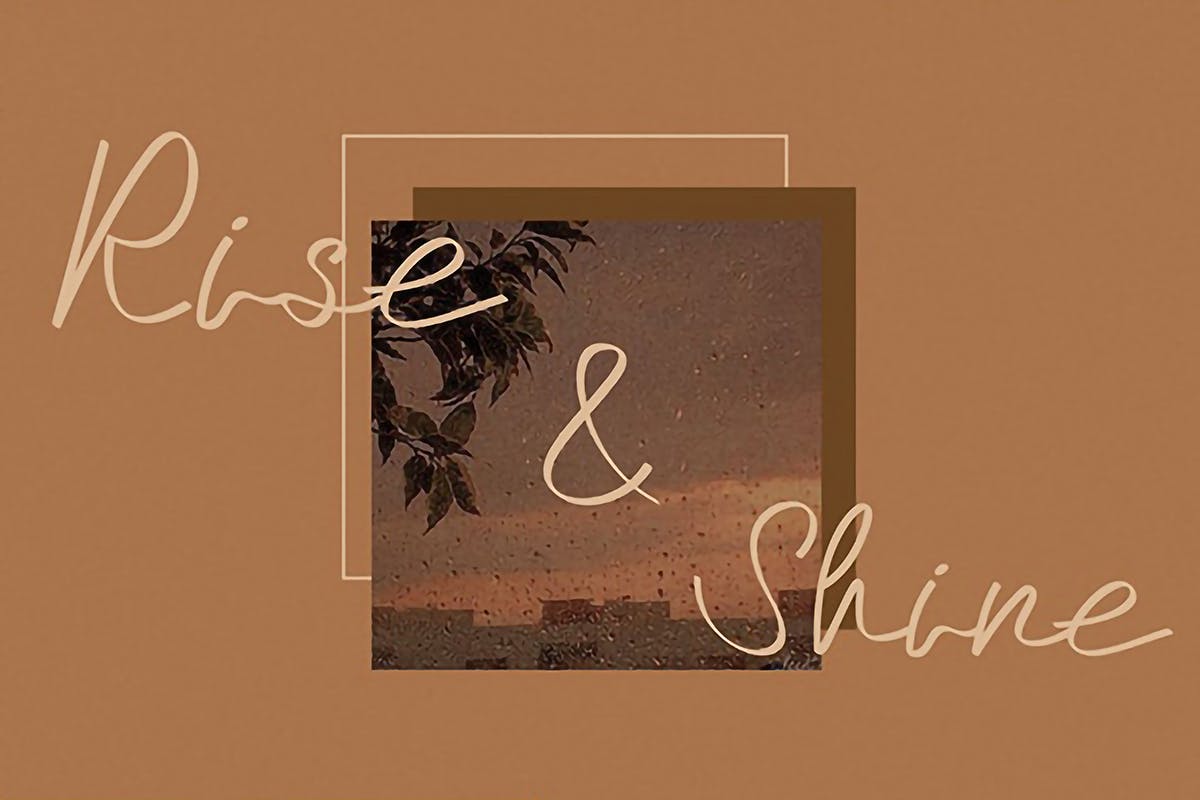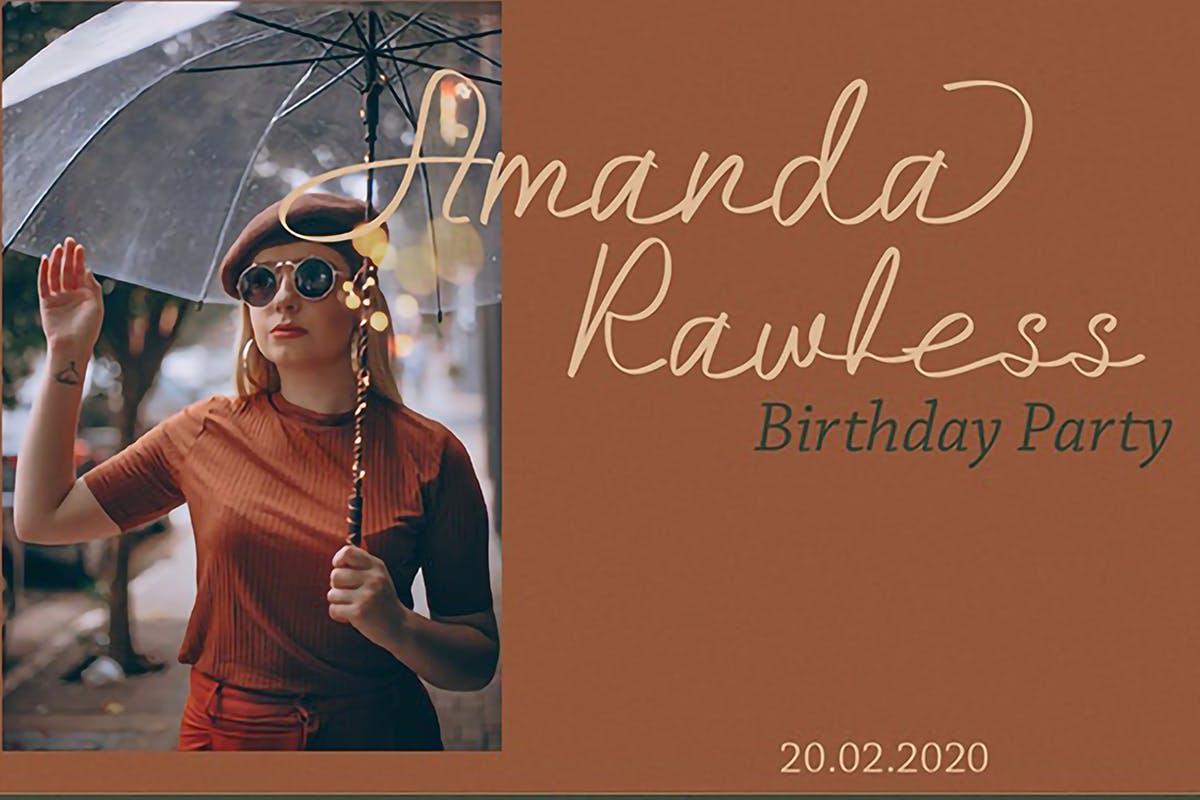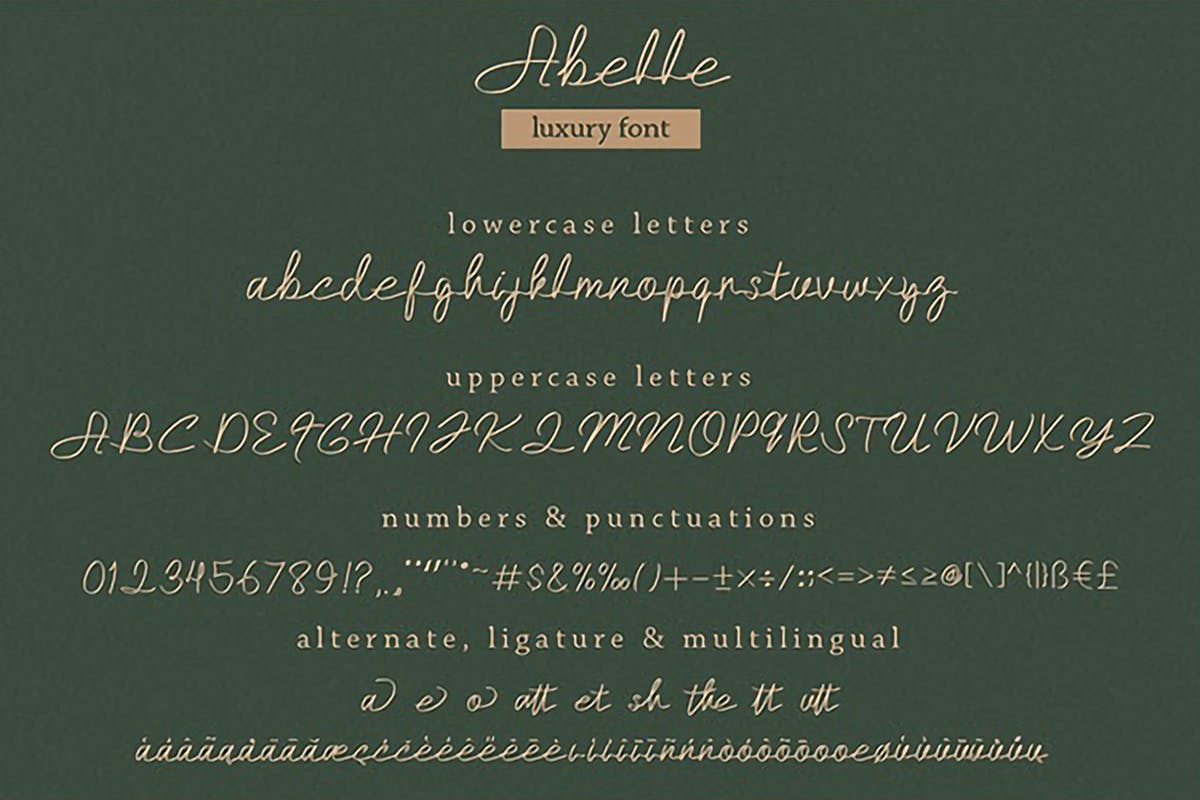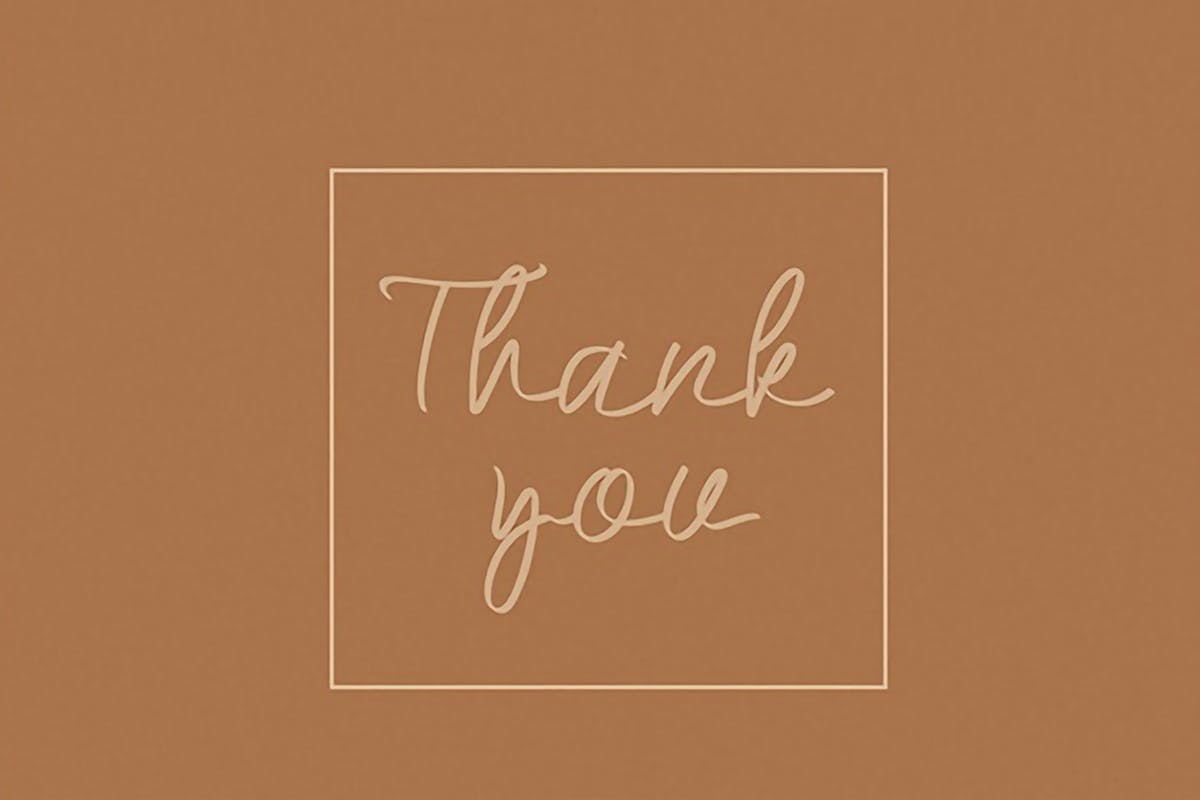
Free Abelle Script Font
Free Abelle Script Font is an elegant script font. It is a luxury hand-lettering that you can use on your works. This font is suitable for wedding invitation, flyers, logo, brand identity, and much more. It is available for the OTF format file that you can install on your devices. However, this free font is coming with a personal use license, but you can get more features if you make a purchase.